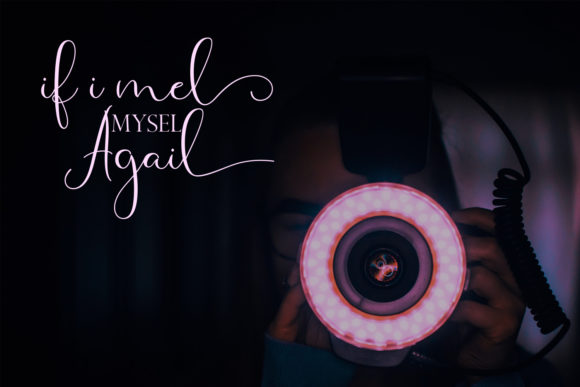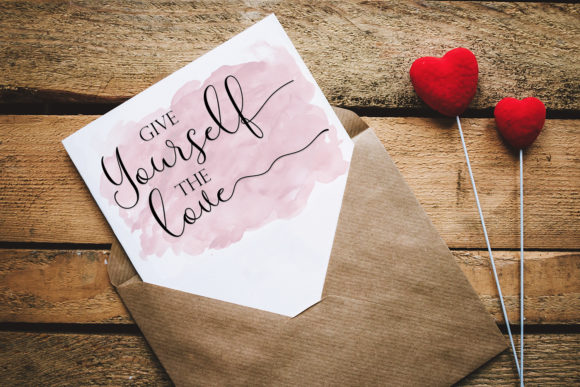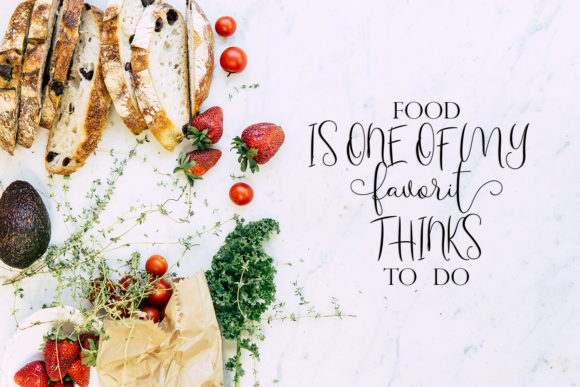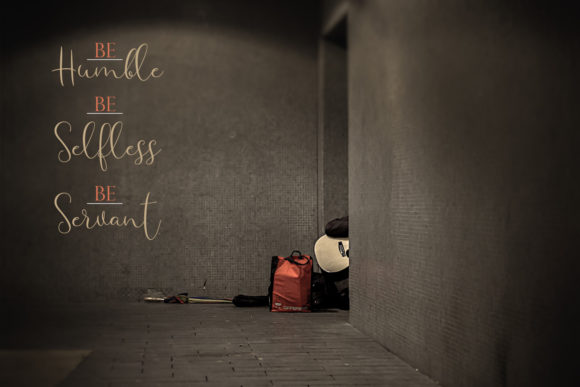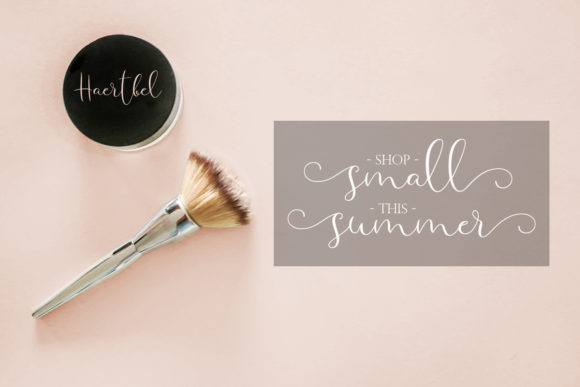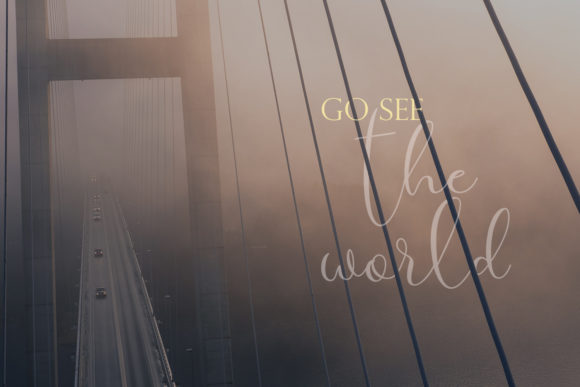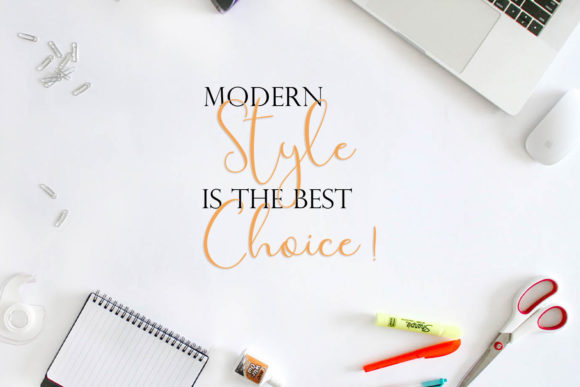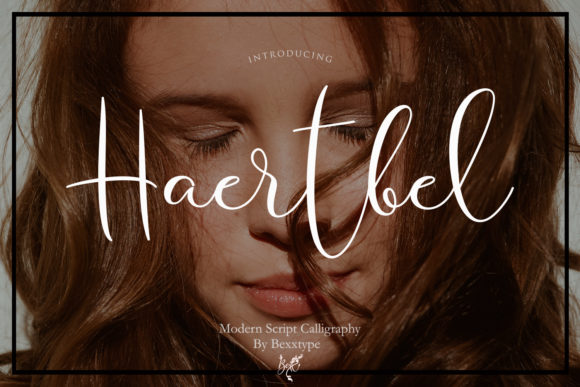
HomeScript FontsHaertbel Script Font Script Fonts Haertbel Script Font FacebookXPinterestWhatsApp Haertbel Script Font Poster 2 Haertbel Script Font Poster 3 Haertbel Script Font Poster 4 Haertbel Script Font Poster 5 Haertbel Script Font Poster 6 Haertbel Script Font Poster 7 Haertbel Script Font Poster 8 Haertbel Script Font Poster 9 About Haertbel Script Font Haertbel is a sweet and charming script that’s full of love. Get inspired by its natural charm! DOWNLOAD NOW People also explored Lalisa Kiss Font The Skywark Font Rostman Font Lovely Jasmine Font Dog Head Font Asalea Monogram Font Love Like This Font Daintily Font Piege Monogram 337 0 TagsHaertbel Script Font Previous articleUndella Script FontNext articleNotalistic Font LEAVE A REPLY Cancel reply Comment: Please enter your comment! Name:* Please enter your name here Email:* You have entered an incorrect email address! Please enter your email address here Website: Save my name, email, and website in this browser for the next time I comment. Personal Use Free Eniem Personal Use Free Read more about this font Just Love Personal Use Free Read more about this font Harmony Personal Use Free Read more about this font Makeba Font Personal Use Free Read more about this font BLOG The 10 Best Handwriting Fonts to Add Personality to Your Designs 10 of the Best Handwriting Fonts for Adding Personality to Your Designs There will undoubtedly be no other better choice than handwriting fonts to give... Free Fonts Risk: Why Free Fonts Can Be Dangerous for Designers Top 10 Handwritten Fonts That Elevate Your Designs Exploring Font Trends